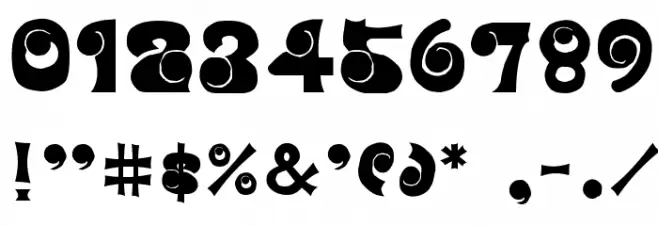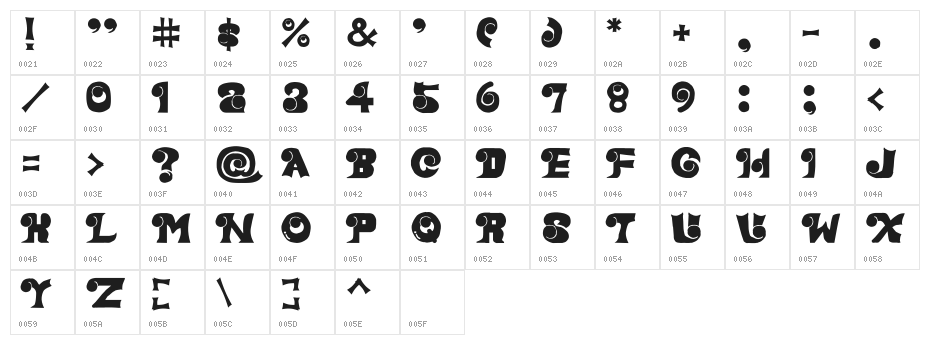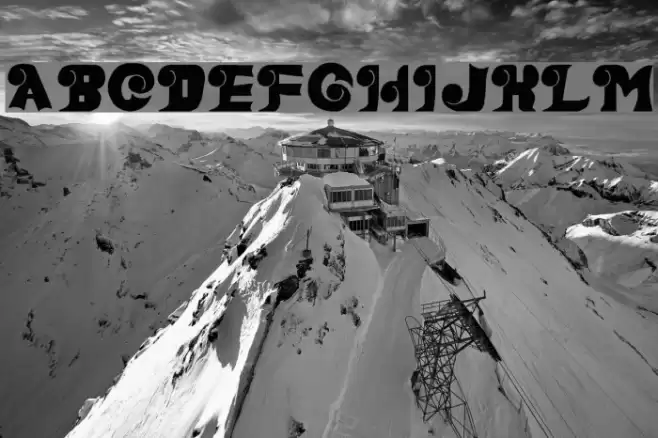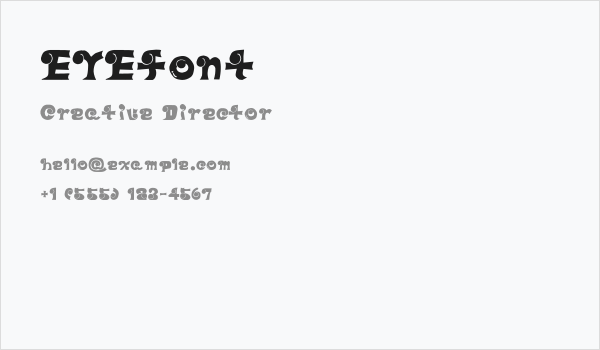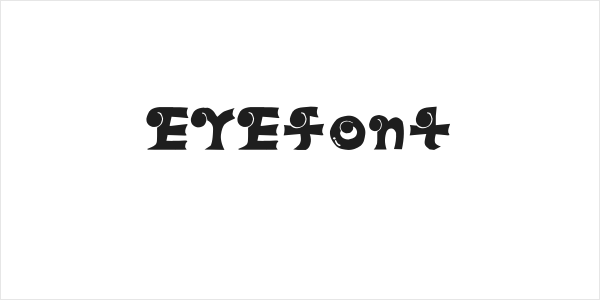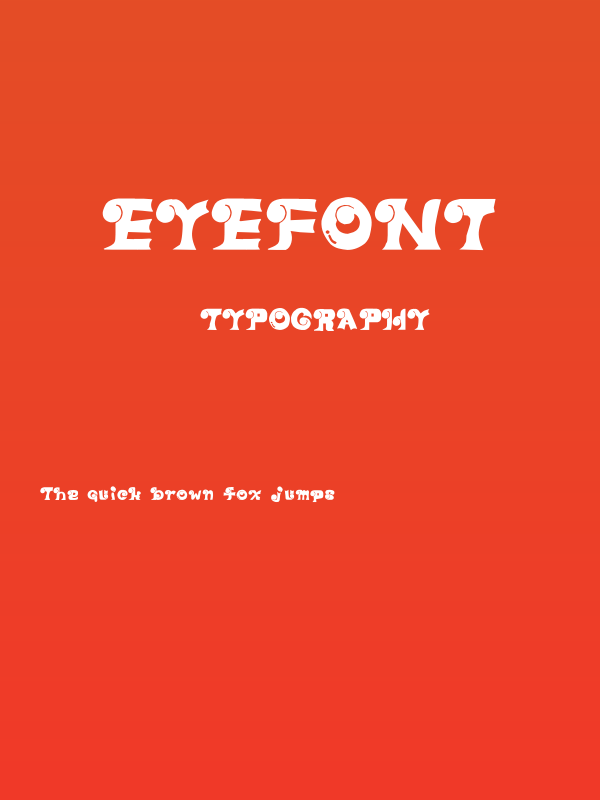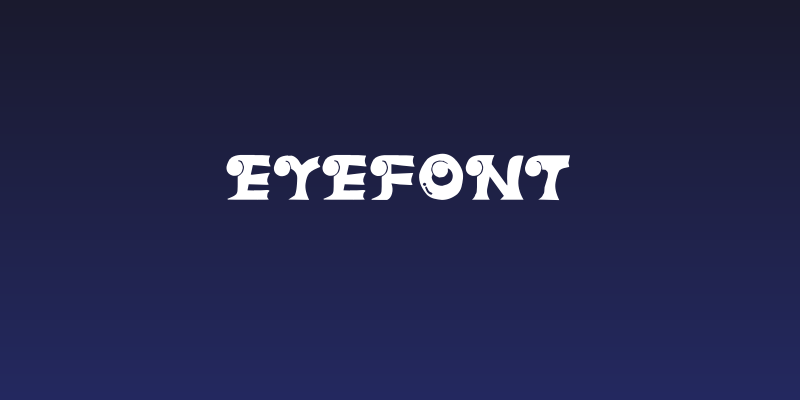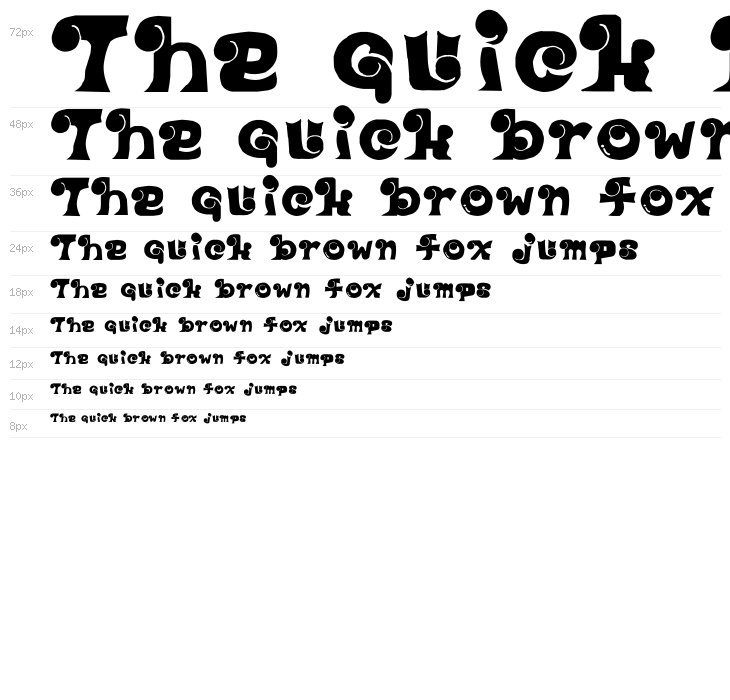
EYEfont Font
EYEfont Description
This font features a bold and playful design with a unique, decorative style. The characters are crafted with a whimsical flair, incorporating bold strokes and rounded elements that create a sense of movement and energy. The uppercase and lowercase letters maintain a consistent style, with exaggerated curves and playful serifs that add to its distinctive appearance. Numbers and special characters follow the same design principles, ensuring a cohesive look across all glyphs. This font is ideal for projects that require a fun and eye-catching aesthetic.
| Proposed Projects | Ideal for children's book covers, playful branding, party invitations, and creative posters. |